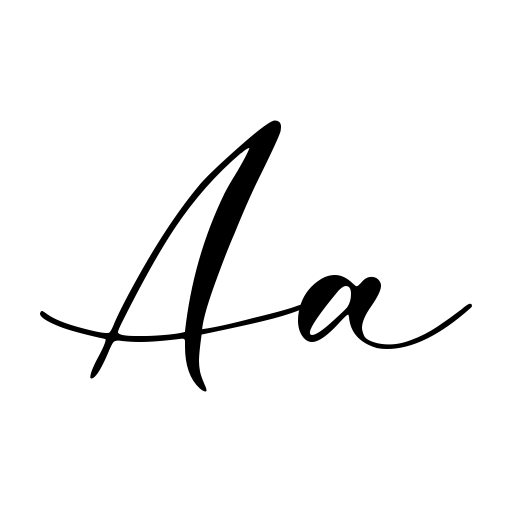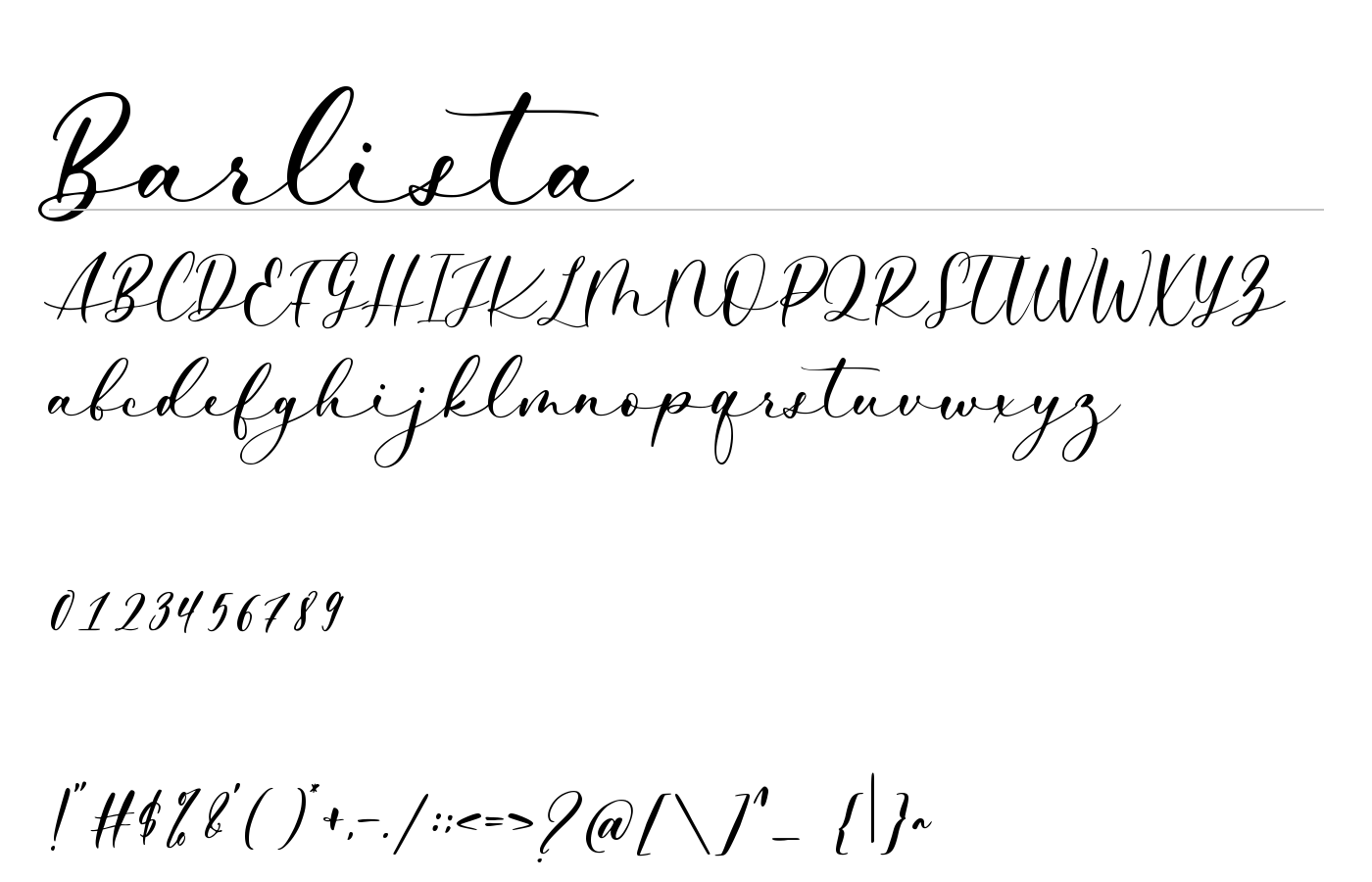
Barlista is an elegant and modern script font with a smooth, flowing style that mimics natural handwriting. Its fine, delicate strokes and high contrast give it a sophisticated yet approachable personality, making it perfect for invitations, branding, and stylish editorial use where a touch of grace and charm is desired.
Barlista Font
About Barlista Font
| Font family | Barlista Font |
| Designer | Muhamad Yusron Billah |